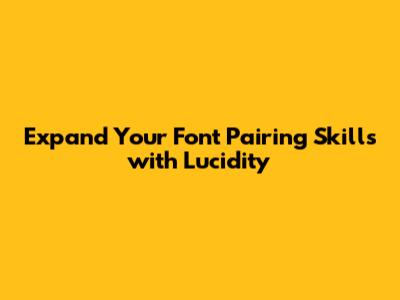
Hey design buddies! Ever feel like your text just isn't hitting the mark? You've got great content, but the typography is falling flat. It's a common struggle, right? Well, let's dive deep into the art of font pairing and how you can use lucidity – that's clarity and understandability – to make your text shine. Think of font pairing as creating a harmonious relationship between different typefaces on your project. It's not just about picking fonts that look good side-by-side; it's about creating a visual hierarchy, guiding the reader's eye, and evoking the right emotions. When you nail a font pairing, your design instantly feels more professional, more engaging, and a whole lot easier to read. So, what exactly makes a font pairing lucid? It boils down to a few key principles: contrast, harmony, and purpose. Contrast is crucial because it helps differentiate elements. Imagine a bold, attention-grabbing headline paired with a light, airy body text. That contrast makes it instantly clear which is which. Harmony, on the other hand, ensures that the fonts don't clash. They should complement each other, perhaps by sharing a common characteristic like x-height or stroke weight, or by belonging to the same font family but with different weights or styles. And purpose? Well, every font choice should serve a reason. Is it to be readable? To convey authority? To feel playful? Understanding the why behind your font choices is the first step to achieving lucidity in your pairings.
The Magic of Contrast in Font Pairing
Let's talk about contrast, guys, because it's the secret sauce to a font pairing that screams lucidity. Without contrast, your text can become a monotonous blob, and nobody wants to read that. The easiest way to introduce contrast is by pairing a serif font with a sans-serif font. Think about it: serifs have those little feet, giving them a classic, traditional vibe, while sans-serifs are clean, modern, and straightforward. When you put them together, they create an immediate visual distinction. For instance, a strong, bold sans-serif like Montserrat for your main headings can grab attention instantly, while a more traditional, readable serif like Merriweather for your body text offers a comfortable reading experience. This pairing is a classic for a reason – it just works. But contrast isn't limited to just serif vs. sans-serif. You can also play with contrast in weight. Pairing a very thin, light font with a very heavy, black font can create a dramatic and sophisticated look. Imagine a delicate, ultra-light script for a special quote, juxtaposed against a robust, condensed sans-serif for the surrounding text. See how that pops? Another way to achieve contrast is through size. While this is the most obvious, it's often overlooked in its potential for creating a hierarchy. A massive, attention-grabbing title that dwarfs the smaller, more subdued body text instantly tells the reader what's important. Don't be afraid to go big with your headlines! Even style can provide contrast. Pairing a highly decorative font with a simple, utilitarian one can work, but you need to be super careful here. The decorative font should ideally be used sparingly, perhaps for a single word or a short phrase, to avoid overwhelming the reader. The goal is always to enhance readability and guide the user, not to make them squint. So, when you're building your font pairings, always ask yourself: How can I create clear visual distinction between these elements? How can I ensure the reader knows what to focus on first? By mastering contrast, you're well on your way to achieving that sought-after lucidity in your designs. It’s all about making smart, intentional choices that guide the eye and communicate your message effectively. Remember, contrast isn't just about difference; it's about purposeful difference that serves the overall design.
Finding Harmony: Making Your Fonts Sing Together
Okay, so we've talked about making things different with contrast, but now let's chat about making them friends. That's where harmony comes in, and it's just as vital for achieving that sweet, sweet lucidity in your font pairings. Harmony means your chosen fonts should feel like they belong together, like they're part of the same design family, even if they aren't strictly from the same typeface. Clashing fonts can make a design feel chaotic and unprofessional, while harmonious fonts create a sense of balance and cohesion. One of the most straightforward ways to achieve harmony is by sticking within the same font family. Most font families offer a range of weights (light, regular, bold, black) and styles (italic, condensed, extended). Using different weights and styles from the same family is a foolproof way to create contrast while maintaining a strong sense of unity. For example, using Open Sans Bold for your headings and Open Sans Regular for your body text is a classic, clean, and harmonious pairing. It's predictable, yes, but incredibly effective for ensuring readability and a polished look. If you want to step it up a notch, consider fonts that share similar characteristics. Look for fonts with the same x-height (the height of lowercase letters like 'x' or 'a'), similar stroke widths, or a shared historical style (e.g., both are geometric sans-serifs, or both are old-style serifs). For instance, pairing Lato (a sans-serif) with Source Serif Pro (a serif) can work beautifully because they share a similar warmth and humanist feel, despite being different categories. You can also achieve harmony through subtle similarities. Maybe both fonts have rounded terminals, or perhaps they both have a slightly condensed structure. These aren't immediately obvious differences, but they create an underlying connection that prevents the fonts from feeling like strangers. Think of it like selecting outfits for a group photo – everyone needs to look good individually, but they also need to coordinate so the overall picture is pleasing. Your font pairings should do the same. Avoid pairing fonts that are too similar. If two fonts are almost identical, the contrast will be lost, and your hierarchy will suffer. The goal is for them to complement, not compete or blend into indistinguishability. So, when you're selecting fonts, feel their vibe. Do they feel like they could hang out? Do they have a shared DNA, even if it's not obvious? If they do, you're on your way to a harmonious, lucid pairing that makes your content a joy to read. It’s all about creating a visual conversation where each font has its voice but they’re all singing from the same songbook.
Purpose-Driven Font Selection: Why Every Font Choice Matters
Alright, let's get down to the nitty-gritty, the why behind it all. For a font pairing to truly achieve lucidity, every single font choice has to be purpose-driven. This is where we move beyond just aesthetics and dive into the strategic thinking that makes your design functional and effective. You can have the prettiest fonts in the world, but if they don't serve the intended purpose of your content, they're just decorative clutter. So, before you even start browsing Google Fonts, ask yourself: What is the goal of this text? Are you trying to inform, persuade, entertain, or sell? Who is your target audience? What are their expectations and preferences? What kind of tone do you want to convey – formal, casual, playful, serious, modern, traditional? Answering these questions will be your compass in navigating the vast world of typography. For example, if you're designing a legal document, you're going to want fonts that exude professionalism, trustworthiness, and readability. Think of classic, well-established serifs like Garamond or Times New Roman for body text, perhaps paired with a clean, authoritative sans-serif like Arial or Helvetica for headings. The purpose here is absolute clarity and a sense of gravitas. Now, contrast that with designing a website for a children's toy store. You'd probably opt for something more playful, friendly, and approachable. Maybe a rounded, sans-serif font with a bit of personality for headings, like Quicksand, and a highly legible, friendly font for the body text, like Nunito. The purpose is to feel welcoming, fun, and easy for parents (and kids!) to navigate. Readability is almost always a primary purpose, especially for body text. Fonts designed for long-form reading tend to have open counters (the space inside letters like 'o' or 'a'), clear distinguishing features between similar letters (like 'I', 'l', and '1'), and a comfortable x-height. Avoid overly decorative or condensed fonts for large blocks of text, as they can quickly lead to eye strain. For headlines and calls to action, the purpose is often to grab attention and convey a key message quickly. This is where you can be more expressive and use bolder weights, more unique styles, or higher contrast. Think about the feeling you want to evoke. Do you want your brand to feel cutting-edge? Then maybe a modern, geometric sans-serif is your go-to. Do you want to feel artisanal and handcrafted? Perhaps a stylish serif or even a well-chosen script could work, used judiciously. Every font choice, every pairing, should be a deliberate step towards achieving your design's objective. It's about making every character count and ensuring that your typography is not just seen, but felt and understood. This purposeful approach is the bedrock of truly lucid and effective design, ensuring your message resonates loud and clear.
Practical Tips for Lucid Font Pairing
Alright, design enthusiasts, let's wrap this up with some actionable tips that will help you achieve that lucid font pairing perfection. We've covered the principles – contrast, harmony, and purpose – now let's get practical. First off, start with your content. Seriously, before you even think about fonts, understand what you're trying to say and who you're saying it to. This guides everything. Once you have a sense of purpose and audience, you can begin your search. A great place to start is often by picking one font you love and building around it. Does it feel modern? Traditional? Playful? Then, look for a complementary font that adds contrast without clashing. Remember the serif/sans-serif combo? It’s a classic for a reason. Don't be afraid to explore font pairing tools. Websites like Fontjoy, Typewolf, and Google Fonts' own pairing suggestions can be lifesavers. They often have algorithms or curated lists that can give you a great starting point, showing you combinations that have been proven to work. Just remember to use them as inspiration, not dogma – always apply your own critical eye and check if they meet your project's specific needs. Limit yourself! Resist the urge to use too many different typefaces. For most projects, two to three fonts are plenty. One for headlines, one for body text, and maybe an accent font for specific callouts or quotes. More than that can quickly lead to visual chaos and detract from your message. Test, test, test! What looks good on a giant monitor might not read well on a small mobile screen. Always preview your pairings in context. Type out actual sentences, paragraphs, and headlines. Zoom in and out. Check readability at different sizes. Does it feel right? Does it communicate effectively? Consider the context. A font that works for a wedding invitation might be completely inappropriate for a technical manual. Think about the medium – print, web, app – as each has different demands on typography. Pay attention to details. Check the spacing between letters (kerning and tracking) and lines (leading). Even the best font pairing can be ruined by poor spacing. Most design software allows you to fine-tune these aspects. Finally, trust your gut, but verify. If a pairing feels off, it probably is. But also, don't dismiss a combination just because it's unconventional if it serves your purpose and maintains readability. The ultimate goal is to create a visually appealing and highly functional design where the typography enhances, rather than hinders, the communication of your message. So go forth, experiment, and create some beautifully lucid typography, guys!